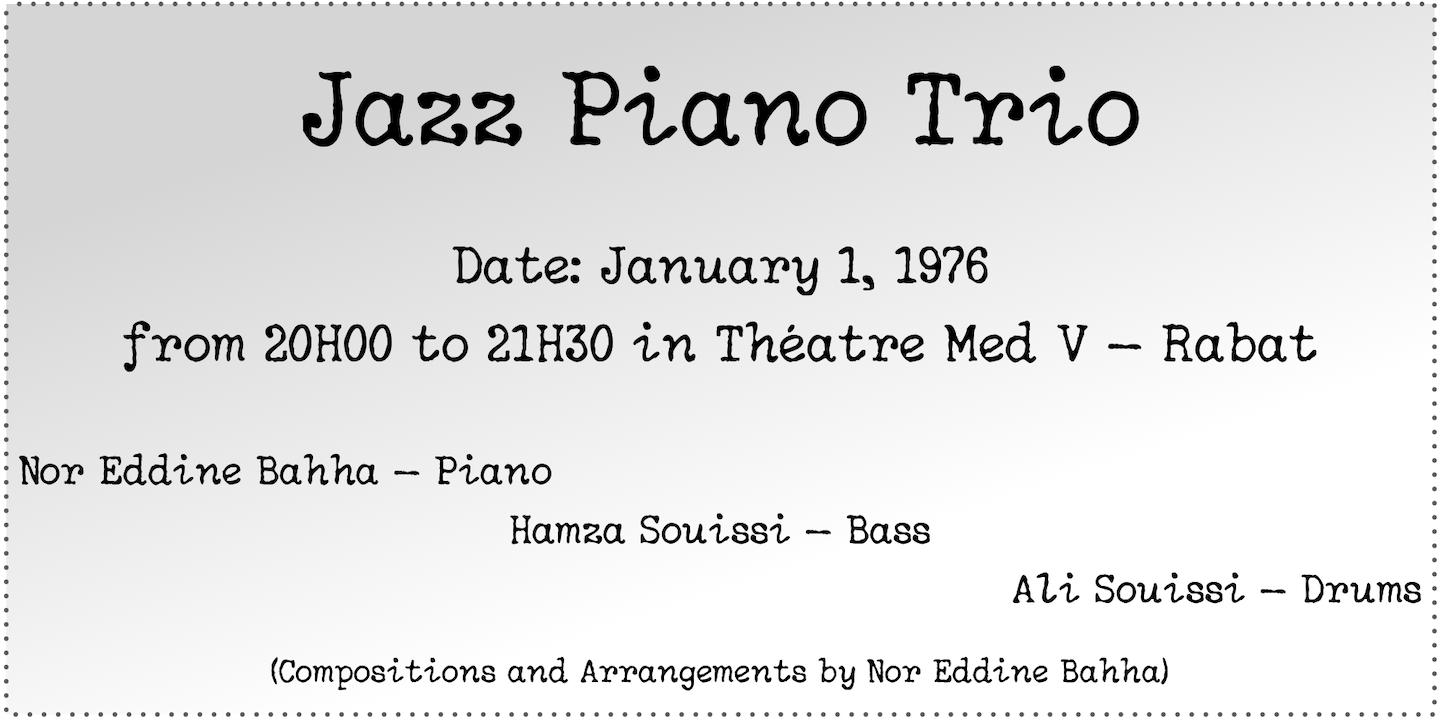
NorB Type Writer Roughen Font is perfect for vintage journalism branding, retro newspaper designs, classic detective novel covers, old-fashioned office signage, historical document recreations, nostalgic writer branding, vintage publishing houses, and authentic designs that require weathered typewriter character and literary heritage.
This font is exciting because it captures the authentic spirit of vintage journalism and literary craftsmanship through its weathered letterforms that preserve every imperfection and character mark of well-used typewriter keys. The distressed character design embodies the dedication and persistence of classic writers and journalists, making it perfect for projects celebrating literary tradition and authentic storytelling.
NorB Type Writer Roughen Font belongs to the vintage typewriter font family, featuring distressed styling and literary elements that enhance its authenticity for publishing and journalism-focused design applications.
Whether you're creating vintage publishing branding or classic literary graphics, NorB Type Writer Roughen Font Free Download delivers maximum authenticity and literary character. This typeface perfectly captures the essence of vintage typewriter culture while maintaining excellent functionality for modern applications. The font's weathered presence works magnificently in book covers, editorial materials, and vintage communications, providing superior readability while maintaining its typewriter character that transforms any design with literary heritage and creates nostalgic storytelling experiences across all media platforms and publishing communications.